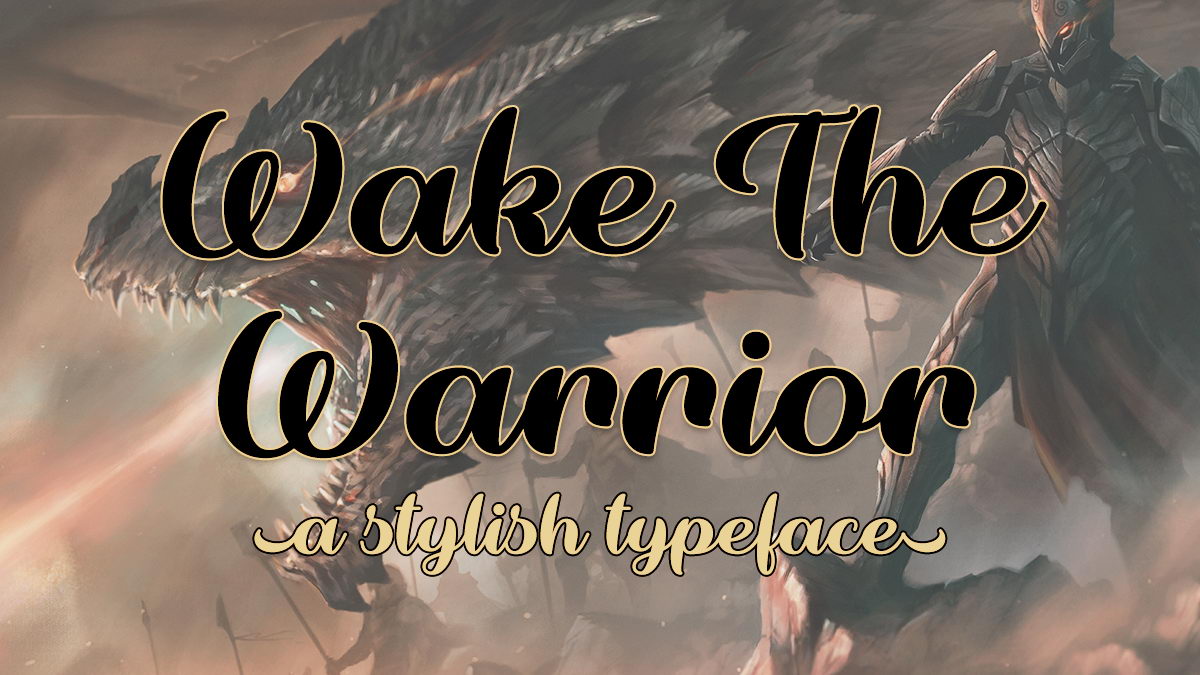
Feb 12, 2025Script & HandwrittenWake The Warrior Font Wake The Warrior is a bold, stylish typeface that will add a “kick” to your projects!Wake The Warrior font is great for logos, product labels, posters, and so much more! Font DetailsDesigned by: Misti's FontsWebsiteLicense: Free for personal use Download Wake The Warrior FontFile size: 47.95 KBCreated: February 16, 2025Updated: February 16, 2025 Download Explore similar fonts Shorebreak Script Font Penlinea Font Kertas Font Noishe Font Bridge Side Font Moments Stories Font # Bold# Brush# Calligraphy# Handwriting More fonts by Misti's FontsRidin Dirty FontShopping For Gifts FontRandom Wednesday FontFun Letters FontSilly Summer FontGarden Whimsy FontPretty Spring FontChillin On Sunday Font